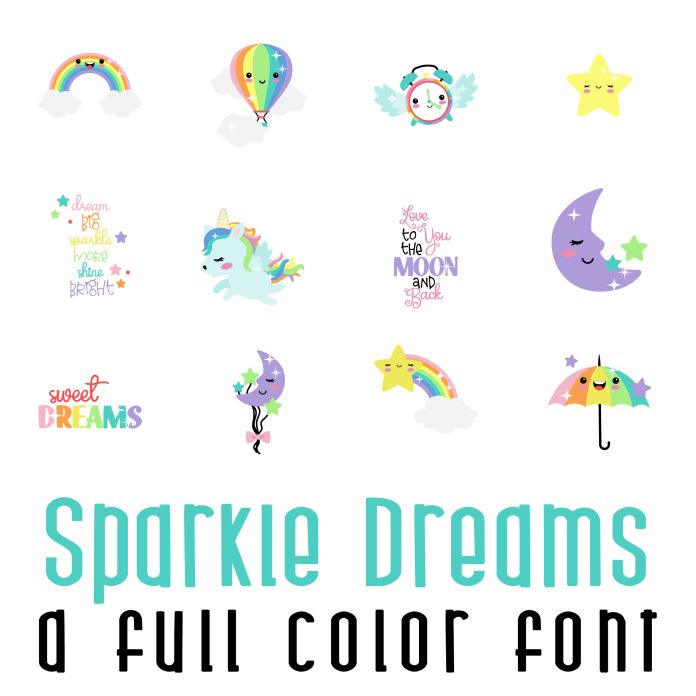
This fun graphic set features 26 adorable kawaii style unicorns, fantasy and dream elements complete with sparkling dazzle. Perfect for cards, crafts, gifts, parties, scrapbook pages, planner stickers and more!